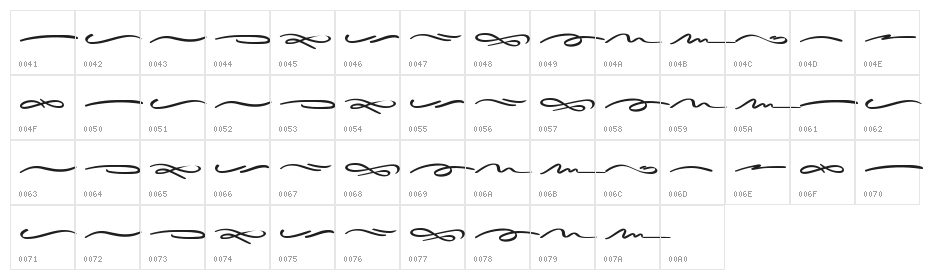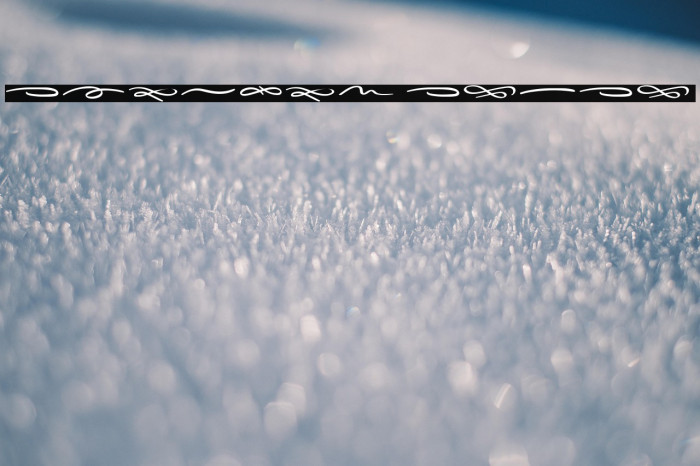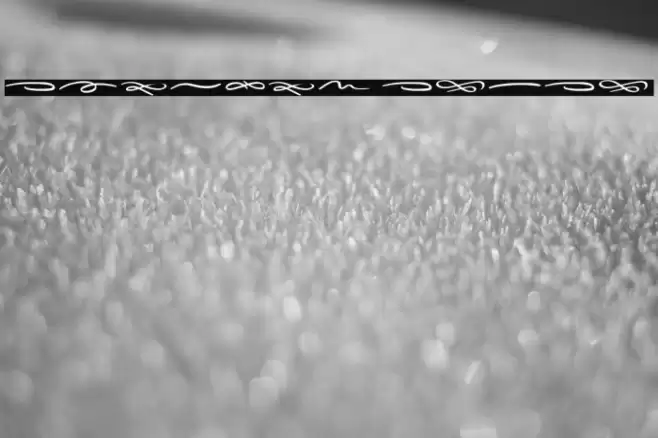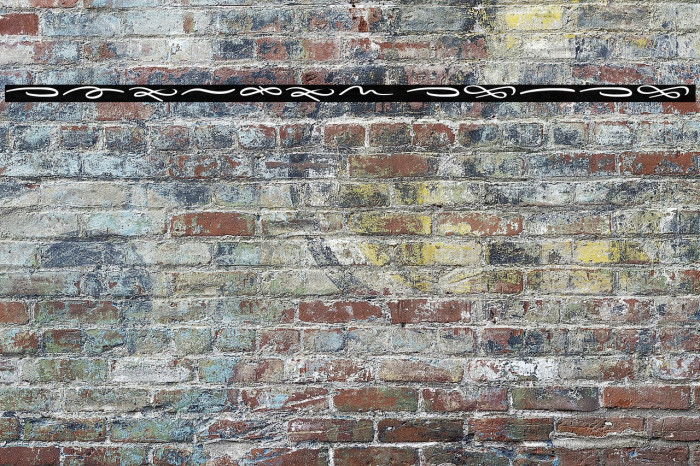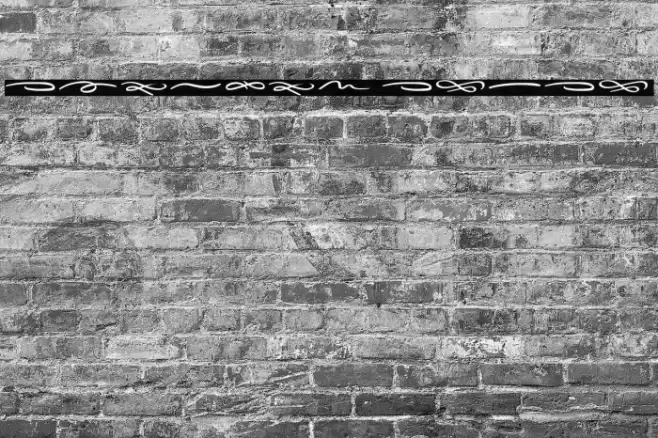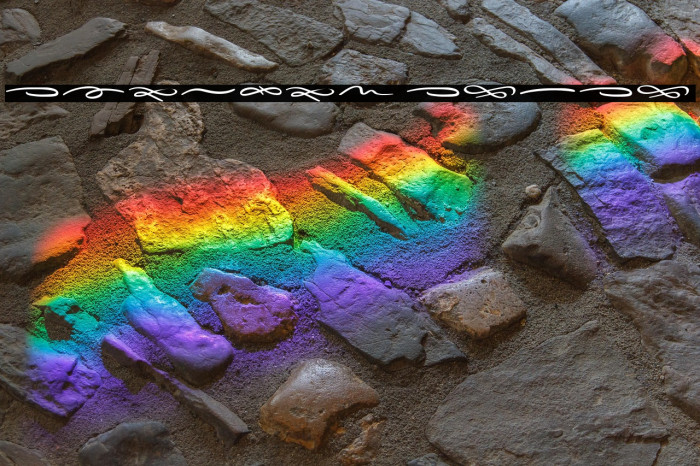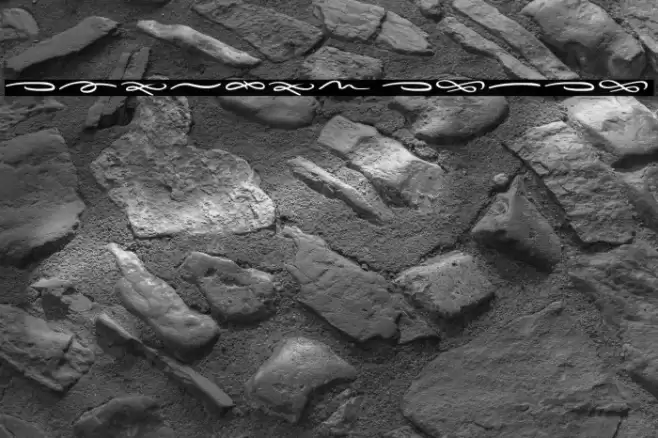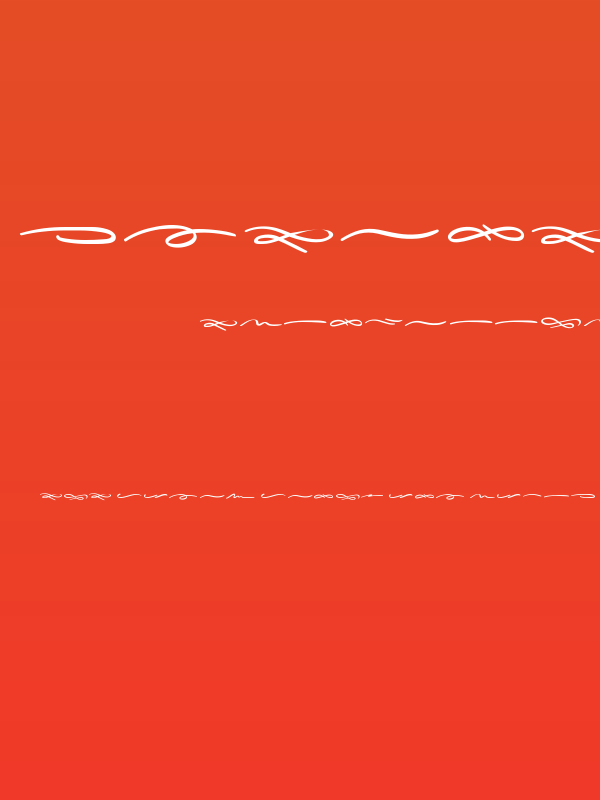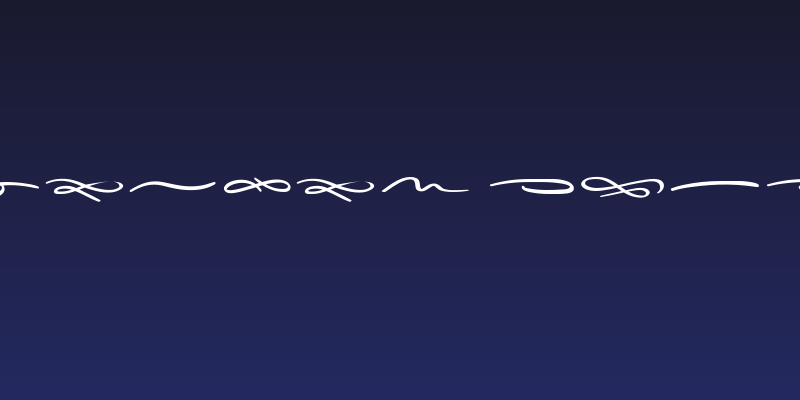
Sieroty Swash Font
Sieroty Swash Description
This font features an elegant and intricate design characterized by its flowing, ornate swashes. Each character is adorned with elaborate flourishes, creating a sense of movement and sophistication. The lines are smooth and continuous, giving the font a hand-drawn appearance. It is highly decorative, making it suitable for artistic and creative projects where a touch of elegance is desired. The font's style is reminiscent of calligraphy, with an emphasis on curves and loops that enhance its visual appeal.
| Proposed Projects | Ideal for wedding invitations, greeting cards, branding for luxury products, and decorative headings. |